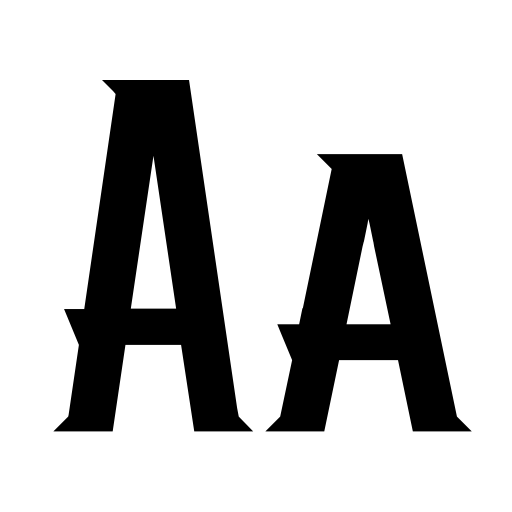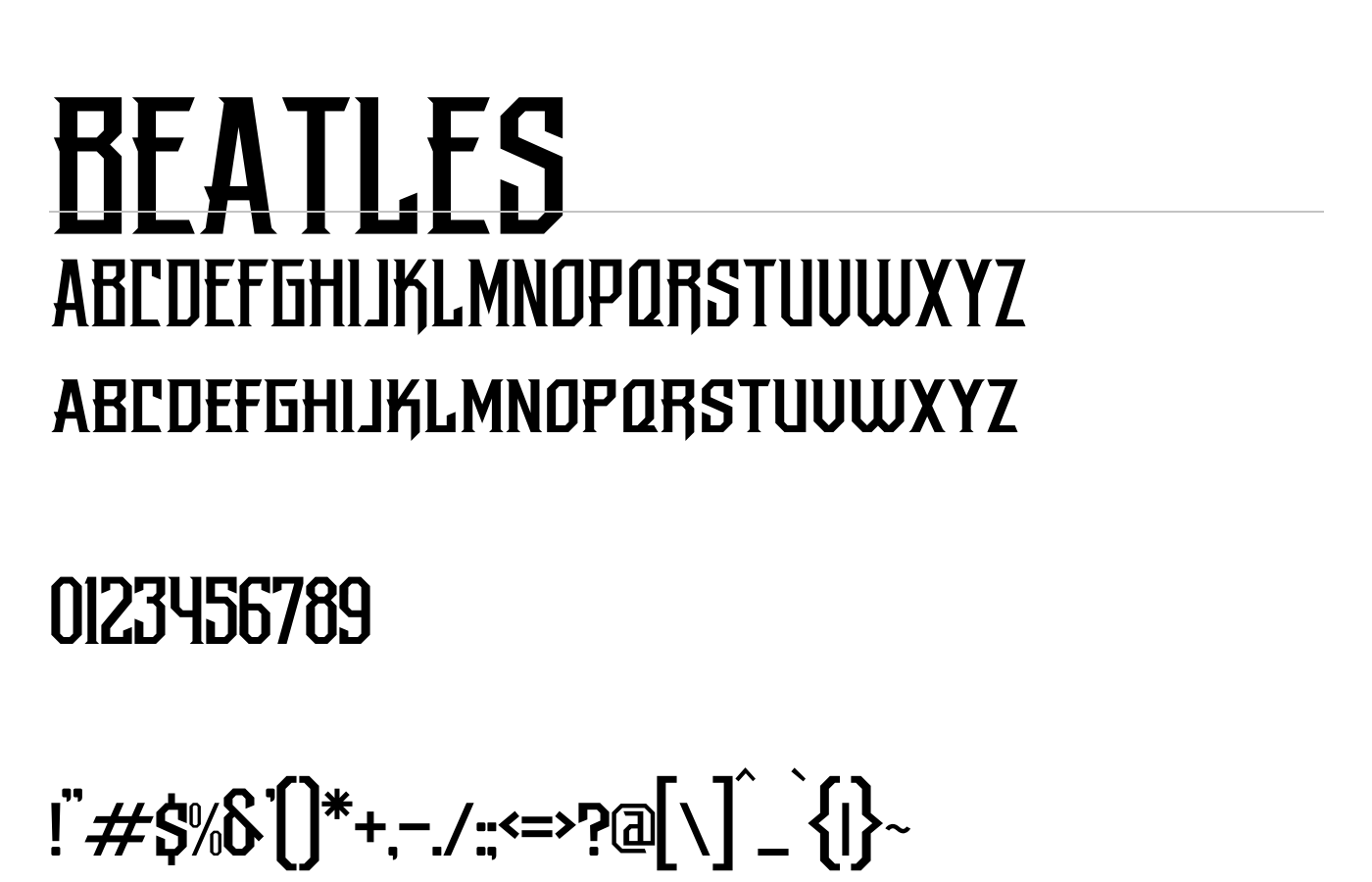
The BEATLES font is a bold, condensed sans serif typeface with sharp, geometric edges and a strong vertical emphasis. Its tall, angular letterforms and high contrast between thick and thin strokes give it a striking, vintage yet modern feel, ideal for impactful headlines and branding that seeks a bold, retro-inspired personality. This font works especially well for logos, posters, and editorial designs looking to convey strength and distinctiveness with a touch of classic style.
BEATLES Font
About BEATLES Font